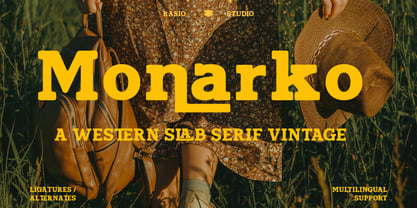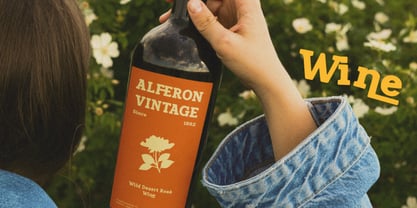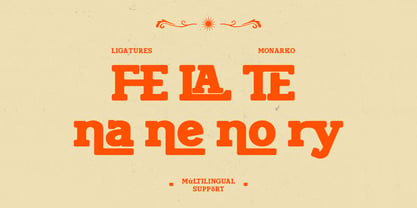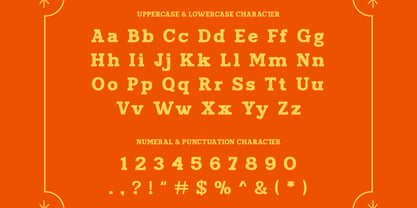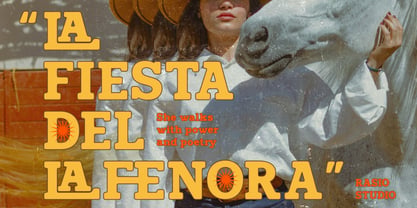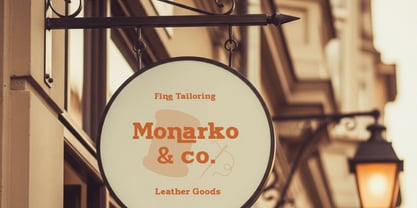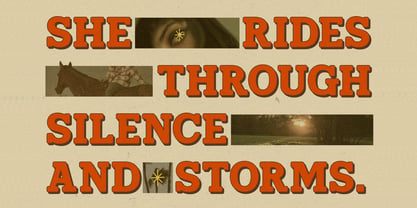
Monarko
by Rasio Studio
The Monarko Font Family was designed by Fajar Indra and published by Rasio Studio. Monarko contains 1 styles. More about this family
The Monarko Western Slab Serif Vintage Font is a bold and charismatic typeface inspired by classic Western aesthetics and retro print culture. Its sturdy slab serifs, geometric proportions, and nostalgic charm evoke strength and authenticity — perfect for posters, packaging, logotypes, and branding that channel a rugged yet stylish personality. With features like full uppercase and lowercase letters, numerals, punctuation, alternates, ligatures, and multilingual compatibility, it provides flexibility and creative control. Whether you’re designing rustic headlines, vintage apparel, or classic branding visuals, Monarko Font delivers strong, confident character with timeless appeal.
Designers: Fajar Indra
Current Foundry: Rasio Studio